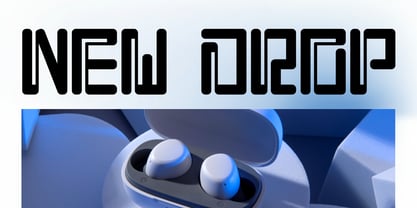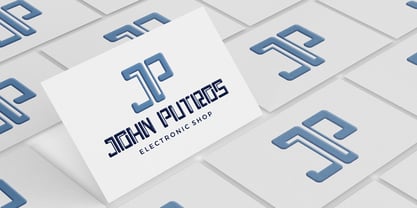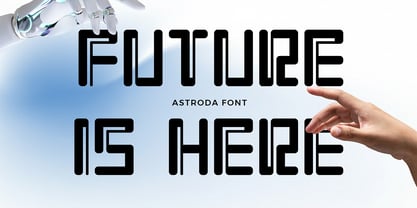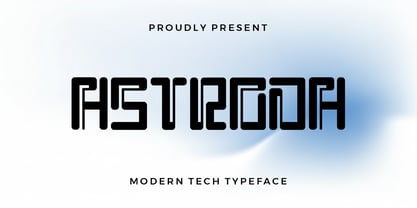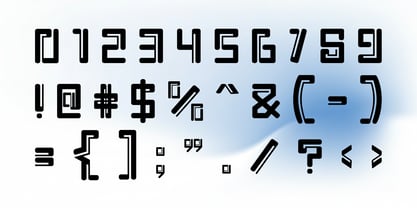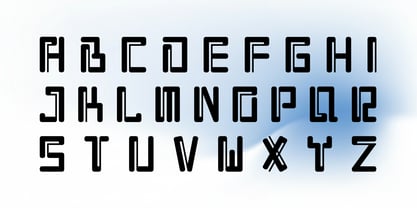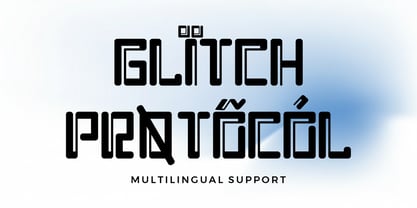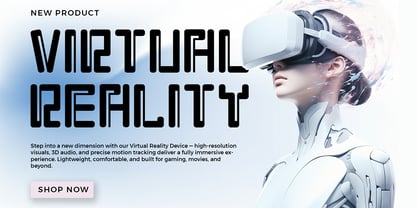
Astroda
by Sipanji21
The Astroda Font Family was designed by Sipanji and published by Sipanji21. Astroda contains 1 styles. More about this family
Astroda is a techno geometric typeface built for designers who embrace the future. It combines the precision of modern architecture with the simplicity of minimalist design, producing a typeface that’s both futuristic and functional. Its bold, modular letterforms are inspired by the world of digital interfaces, robotics, and electronic systems — capturing the rhythm of modern life in every shape. Each character feels engineered with care, blending circular continuity and squared geometry to create a unique visual flow that’s perfect for contemporary layouts and branding. Astroda’s design stands out for its clarity and rhythm. The smooth rounded edges give it a refined appearance, while the compact width and technical form add strength and style. This makes it ideal for use in technology branding, sci-fi visuals, app design, or experimental typography. Astroda includes Uppercase, Numbers, and Punctuation, plus Multilingual Support and Stylistic Alternates for advanced customization. The alternates provide subtle variations that let you adapt the tone — from minimal and clean to bold and futuristic — depending on your project’s mood. Design Applications: Modern logos and brand identities Futuristic packaging and editorial design App interfaces and digital products Sci-fi games, movies, and titles Tech startups, architecture, and modern displays Why Choose Astroda: Astroda redefines futuristic typography. Unlike overly complex sci-fi fonts, it keeps its structure simple and readable — making it both visually impressive and highly usable. Its perfect balance between geometric order and fluid motion allows it to stand out in professional environments while maintaining a sense of creativity and progress. This is a font for the creators of tomorrow — for those who design products, visuals, and systems that shape modern life. Astroda captures the essence of technology and movement, making it ideal for both large-format graphics and digital microtext. It’s sleek. It’s smart. It’s the new definition of digital elegance.